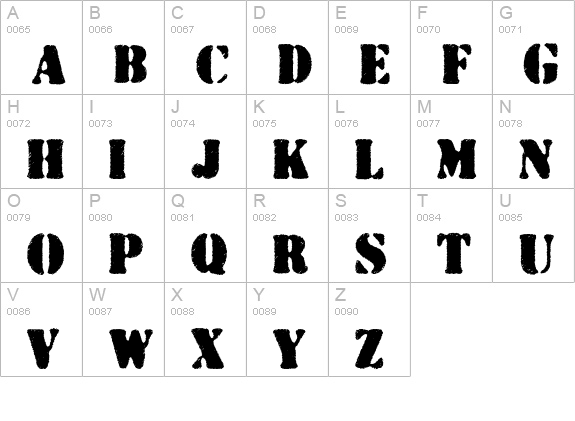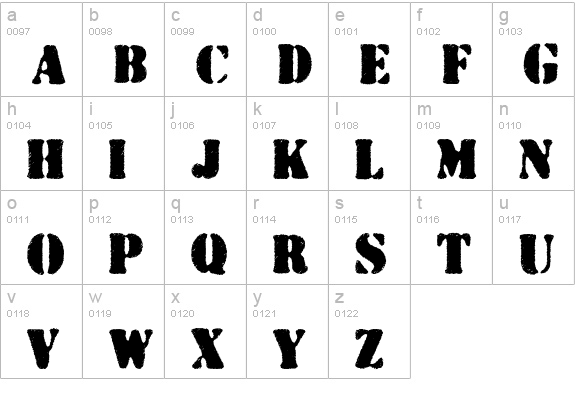
Introducing Wartorn, a powerful and captivating font that embodies the essence of strength and resilience. This unique typeface is inspired by the chaos and battles of the past, bringing an edgy and rugged vibe to any design project. Wartorn's bold and sharp letterforms exude a sense of determination and courage, making it the perfect choice for projects that require an impactful and commanding presence. What sets Wartorn apart is not only its visually striking appearance, but also its versatility. Whether you're designing a poster for a war-themed event, creating a book cover for an action-packed novel, or even crafting a logo for a brand that seeks to make a bold statement, Wartorn is the ideal font to convey your message with intensity and flair. And the best part? Wartorn is absolutely free! That's right, this remarkable font is freely available to download at FontsMarket.com. We believe in making exceptional design accessible to everyone, and Wartorn is no exception. Now you can enhance your projects with this captivating font without breaking the bank. So, why wait? Dive into the world of Wartorn and let the battle-ready letterforms inspire your creativity. Download the font for free at FontsMarket.com and unleash the power of Wartorn in your designs today.